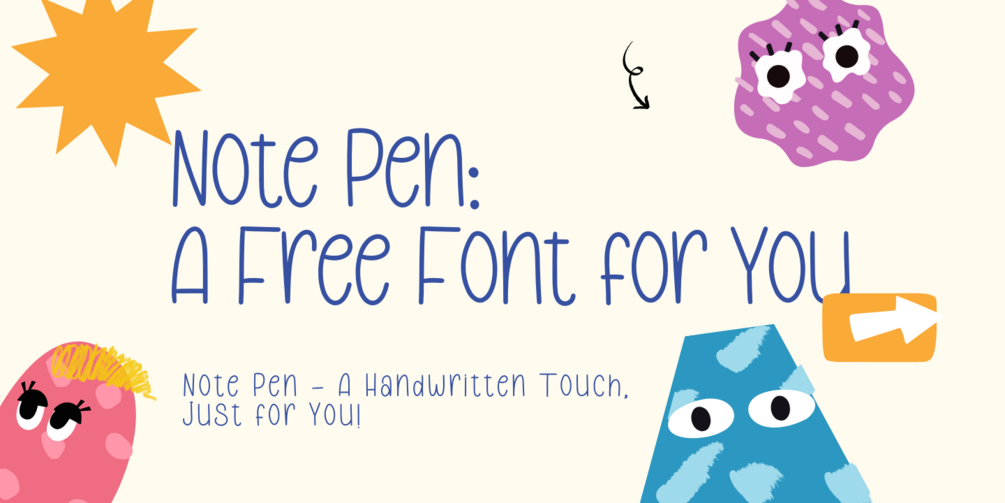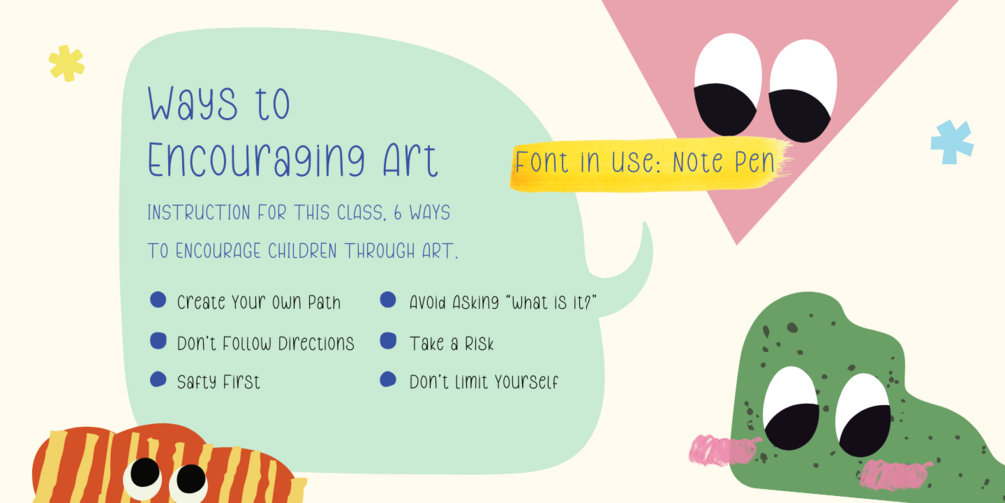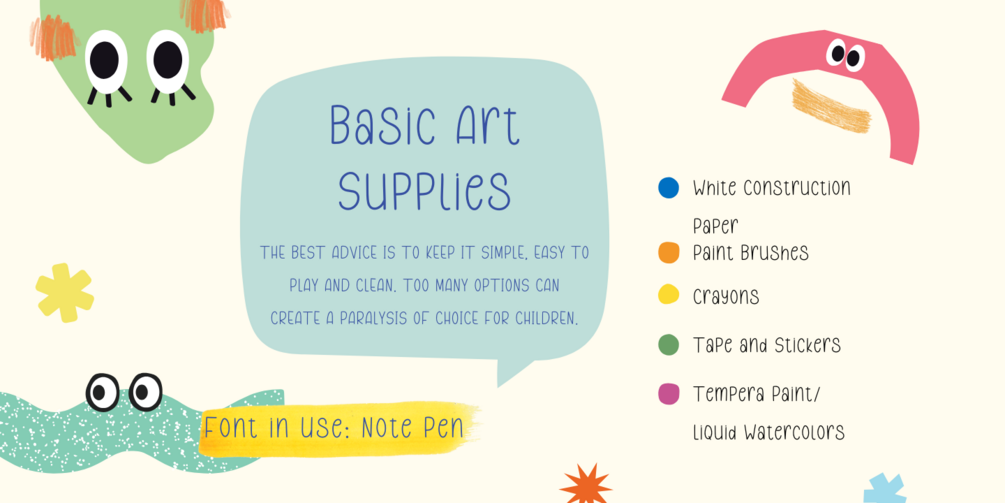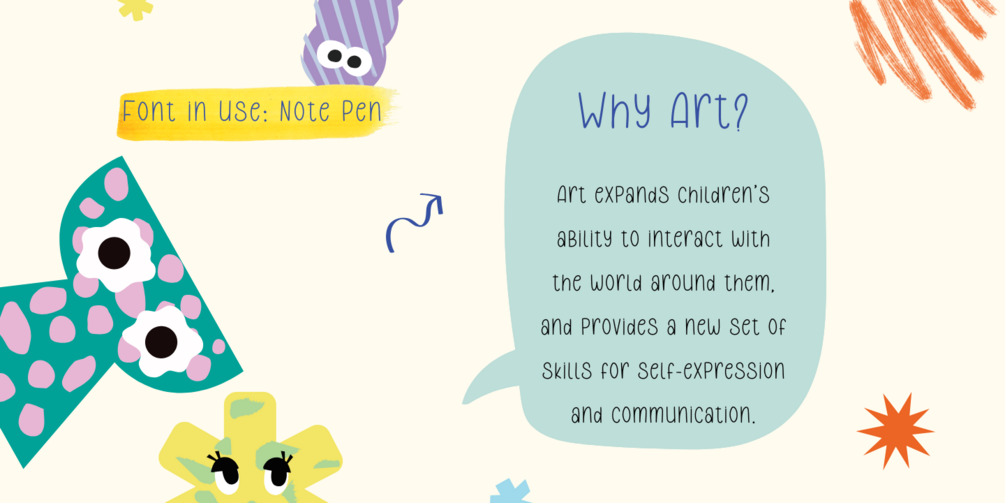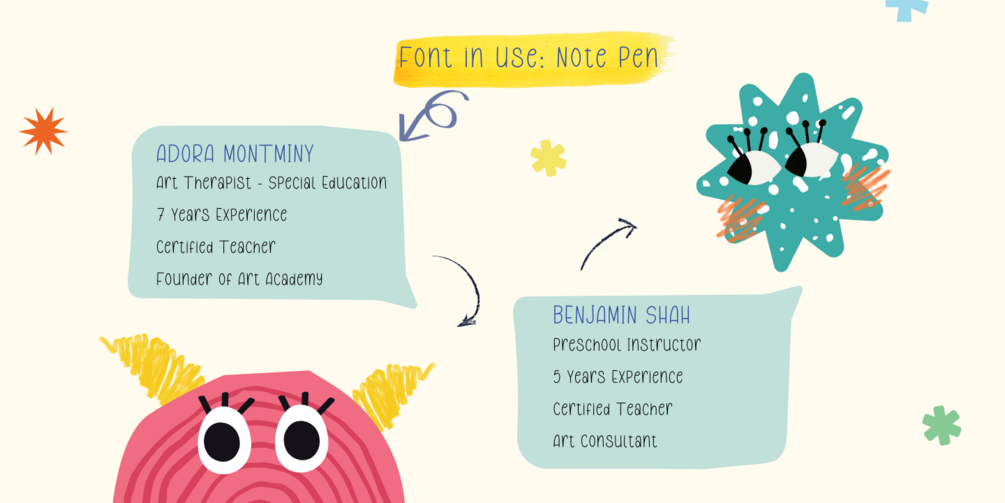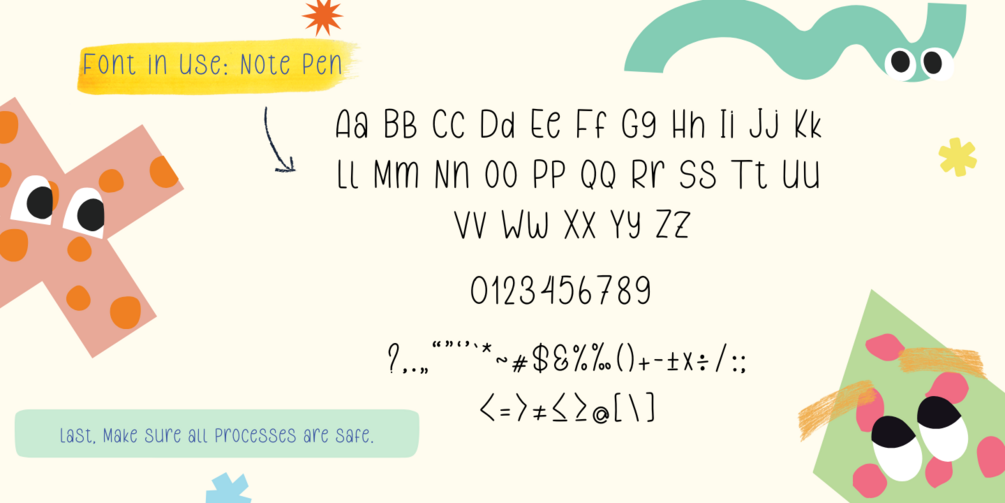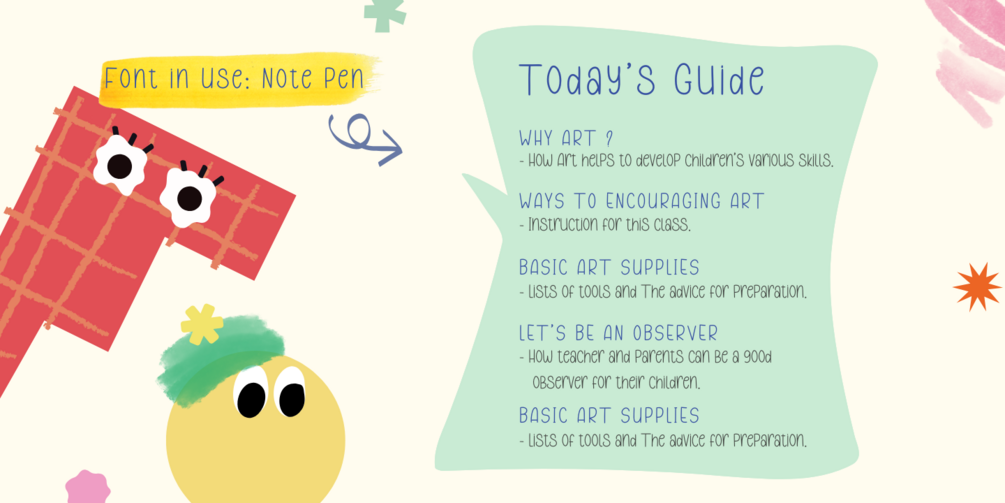
Note pen
🔤 NOTE PEN — By Bearytype Studio
Bring a warm, handwritten charm to your designs with NOTE PEN — a friendly, natural pen-style font made to elevate logos, branding, packaging, journals, social media posts, and more.